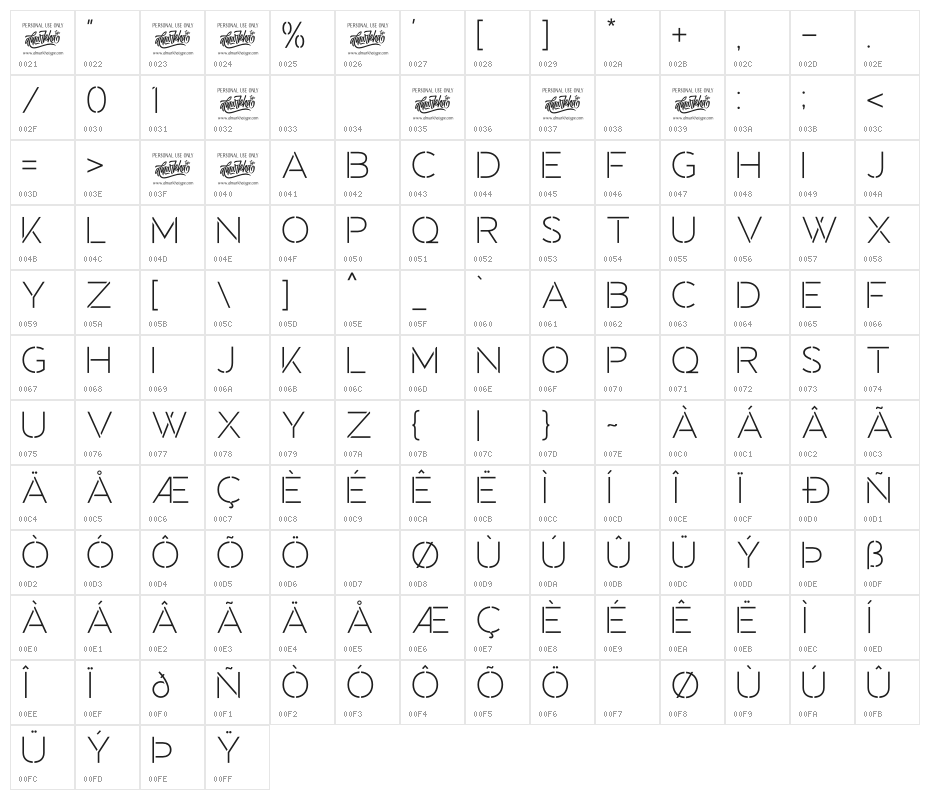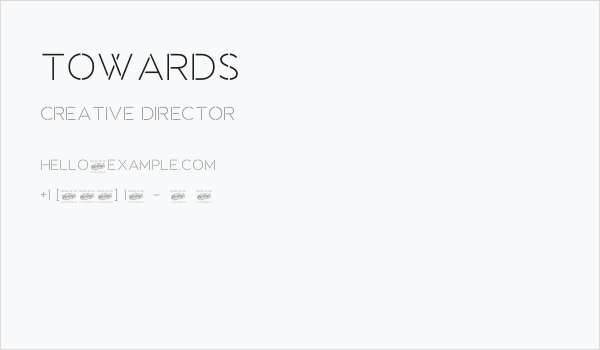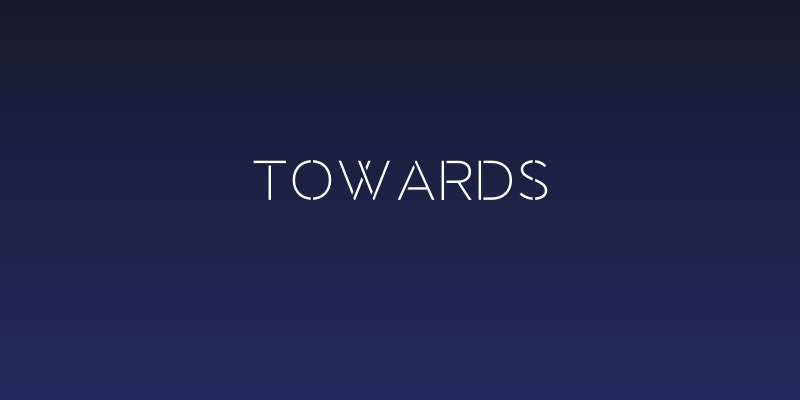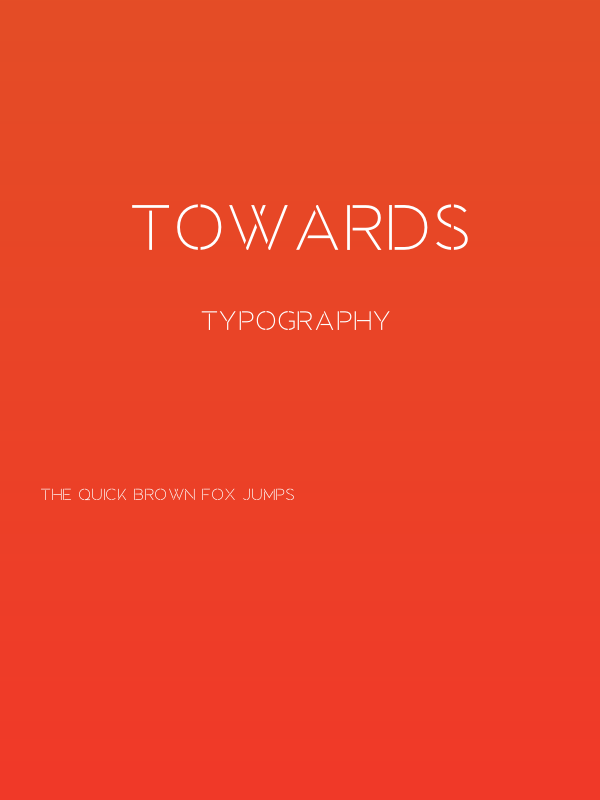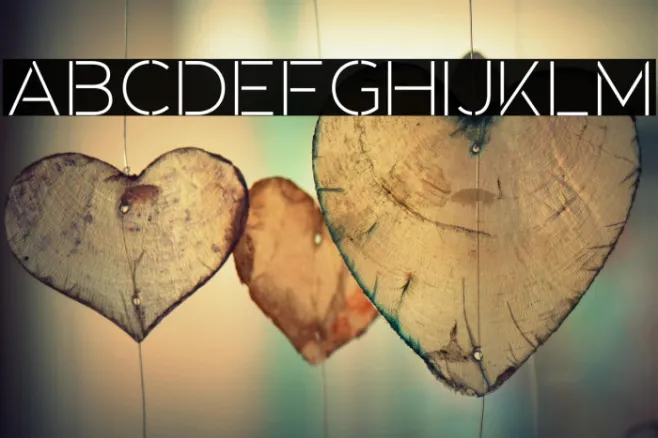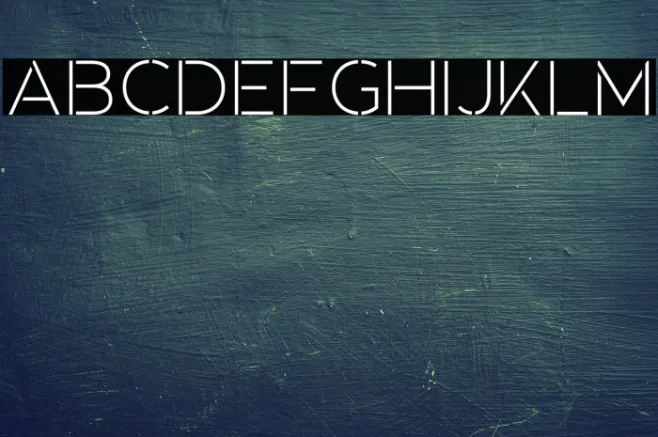
Towards Font
Towards Description
This font features a sleek, geometric design with clean lines and a modern aesthetic. The uppercase and lowercase letters are consistent in style, with a uniform stroke width that gives the font a balanced and harmonious appearance. The characters are slightly condensed, which enhances its contemporary feel. The numbers and special characters follow the same design principles, ensuring a cohesive look across all elements. This font is ideal for projects that require a modern and professional touch, such as branding, advertising, and editorial design.
| Proposed Projects | Branding, advertising, editorial design, and modern web design. |